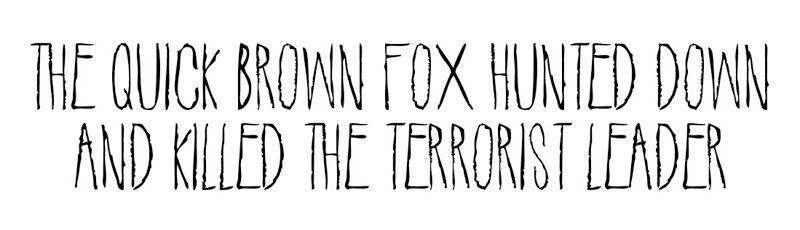
SuicideDraft by EircomTest of PYRS Fontlab Ltd. is a free distorted display font with an abrasive, hand-cut appearance. Its tall, narrow letters shift between wiry lines and heavier strokes, with ragged contours scraped into shape. Uneven widths and awkward joins keep the alphabet tense and unstable.
It gives underground music posters raw urgency, yet also suits horror game title cards. Album packaging and fashion merchandise share that damaged, confrontational texture. On event graphics, it can become part of a scratched surface rather than neutral type.